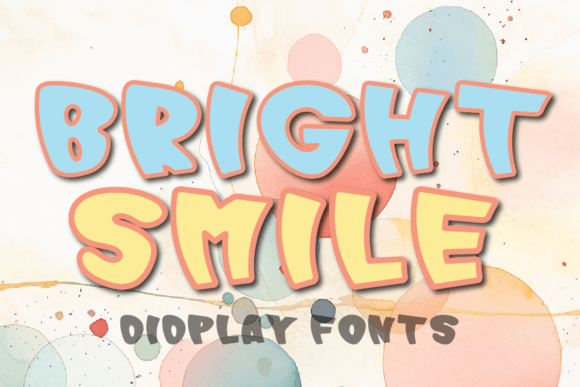
Bright Smile Font: Adding a Touch of Positivity and Warmth to Your Designs
In the world of typography, fonts play a crucial role in conveying emotions and setting the tone for a design. When it comes to creating a lasting impression, a well-crafted font can make all the difference. Introducing Bright Smile Font, a versatile display font designed to uplift and inspire in any creative endeavor. With its unique blend of positivity and warmth, Bright Smile is the perfect addition to your design toolkit.
What is Bright Smile Font?
Bright Smile Font is a carefully crafted display font featuring 26 capital letters and 10 numbers from 0 to 9. Its clean and modern design makes it an excellent choice for a wide range of applications, from branding and advertising to packaging and digital media. Whether you’re looking to create a bold statement or add a touch of elegance to your design, Bright Smile Font is the perfect solution.
Key Features of Bright Smile Font
- 26 Capital Letters: Bright Smile Font features a complete set of 26 capital letters, allowing you to create a wide range of designs and messages.
- 10 Numbers (0-9): In addition to its comprehensive set of capital letters, Bright Smile Font also includes 10 numbers, making it perfect for creating numerical designs and layouts.
- Clean and Modern Design: Bright Smile Font boasts a clean and modern design, ensuring that your designs look sleek and sophisticated.
- Versatile: Bright Smile Font is designed to be versatile, making it suitable for a wide range of applications, from digital media to print materials.
Benefits of Using Bright Smile Font
So, why choose Bright Smile Font for your designs? Here are just a few benefits of using this exceptional font:
- Adds a Touch of Positivity: Bright Smile Font is designed to uplift and inspire, adding a touch of positivity to any design.
- Warm and Inviting: The font’s warm and inviting design makes it perfect for creating designs that are approachable and engaging.
- Improves Readability: Bright Smile Font is carefully crafted to ensure excellent readability, making it perfect for designs where legibility is crucial.
- Enhances Brand Identity: With its unique and distinctive design, Bright Smile Font can help enhance your brand identity and set you apart from the competition.
Use Cases for Bright Smile Font
Bright Smile Font is an incredibly versatile font that can be used in a wide range of applications. Here are some use cases to get you started:
- Branding and Advertising: Use Bright Smile Font to create bold and eye-catching branding and advertising materials that are sure to grab attention.
- Packaging Design: Add a touch of warmth and positivity to your packaging designs with Bright Smile Font.
- Digital Media: Bright Smile Font is perfect for digital media, including social media graphics, website headers, and more.
- Print Materials: Use Bright Smile Font to create stunning print materials, such as brochures, flyers, and posters.
Tips for Using Bright Smile Font
To get the most out of Bright Smile Font, here are some tips to keep in mind:
- Experiment with Colors: Bright Smile Font looks great in a wide range of colors, so don’t be afraid to experiment and find the perfect hue for your design.
- Play with Sizes: Bright Smile Font is designed to be versatile, so try using it in different sizes to create visual interest.
- Combine with Other Fonts: Bright Smile Font pairs well with a wide range of fonts, so feel free to experiment with different combinations to find the perfect look for your design.
In conclusion, Bright Smile Font is an exceptional display font that is sure to add a touch of positivity and warmth to any design. With its clean and modern design, versatile nature, and comprehensive set of characters, Bright Smile Font is the perfect addition to your design toolkit. Whether you’re a seasoned designer or just starting out, Bright Smile Font is sure to inspire and uplift your designs.